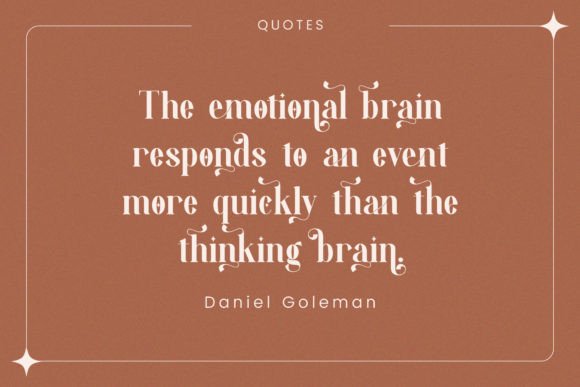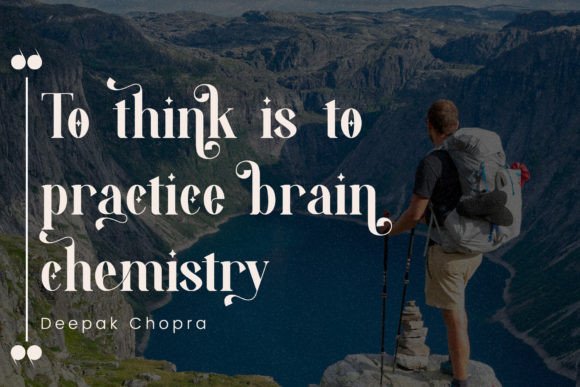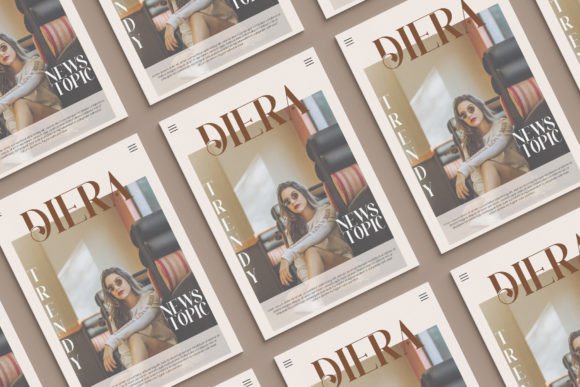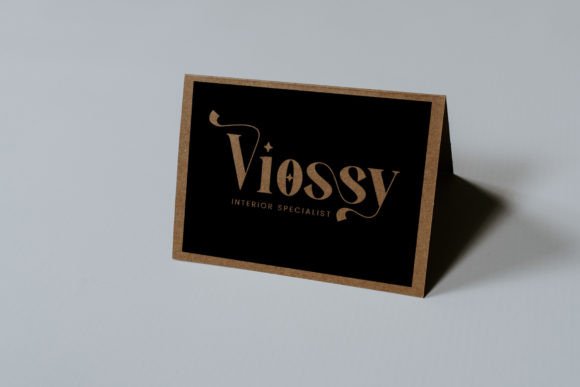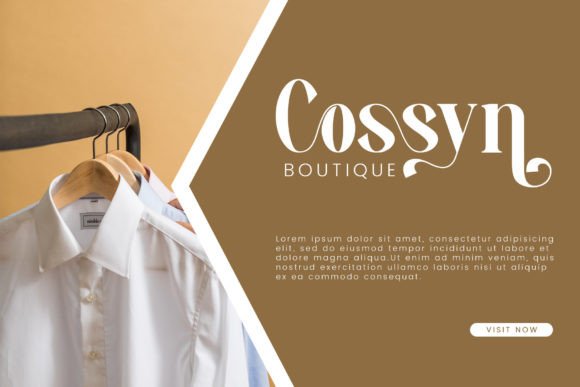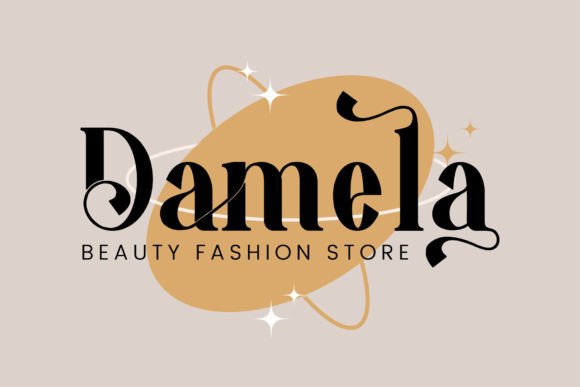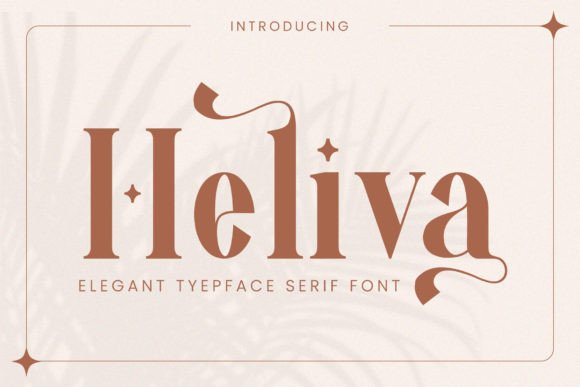
Introducing Heliva Font: Elevate Your Designs with Elegance and Sophistication
In the world of typography, fonts play a crucial role in conveying the tone and personality of a design. For designers and crafters seeking a serif font that embodies balance, smoothness, elegance, and style, Heliva Serif is an exceptional choice. This versatile font is perfect for a wide range of applications, from invitation card designs and company logos to movie titles, business cards, book titles, and brand names.
The Characteristics of Heliva Serif
Heliva Serif is a subtle serif font that exudes sophistication and elegance. Its carefully crafted characters are designed to make a lasting impression, adding a touch of refinement to any project. The font’s stylish alternations and ligatures make it the perfect partner for designers looking to create unique and captivating designs.
One of the standout features of Heliva Serif is its PUA (Private Use Area) encoding. This means that users can easily access all the amazing glyphs and ligatures, allowing for effortless customization and creativity. Whether you’re working on a logo, title, or any other design element, Heliva Serif provides the flexibility and versatility you need.
Heliva Serif’s adaptability makes it an excellent choice for various design projects. Here are some examples of how this font can elevate your work:
- Invitation Card Designs: Create beautiful and sophisticated invitations for weddings, parties, and other special events.
- Company Logos: Establish a professional and elegant brand identity with Heliva Serif.
- Movie Titles and Names: Add a touch of glamour and sophistication to your movie titles and credits.
- Business Cards: Make a lasting impression with elegant and stylish business cards.
- Book Titles: Create eye-catching and professional book covers with Heliva Serif.
- Brand Names: Develop a strong brand identity with a font that exudes elegance and refinement.
Why Choose Heliva Serif?
With so many fonts available, why choose Heliva Serif? Here are a few compelling reasons:
- Elegance and Sophistication: Heliva Serif’s subtle serif design and stylish alternations make it perfect for projects that require a touch of refinement.
- Versatility: This font is suitable for a wide range of design applications, from logos and titles to business cards and book covers.
- PUA Encoding: Easy access to glyphs and ligatures allows for effortless customization and creativity.
- Beautiful Character Design: Heliva Serif’s carefully crafted characters are designed to make a lasting impression.
Heliva Serif is a versatile and elegant serif font that can elevate any design project. Its subtle sophistication, stylish alternations, and ligatures make it perfect for designers and crafters seeking to create unique and captivating designs. With its PUA encoding and beautiful character design, Heliva Serif is an excellent choice for a wide range of applications. Whether you’re working on a logo, title, or any other design element, Heliva Serif is sure to impress.